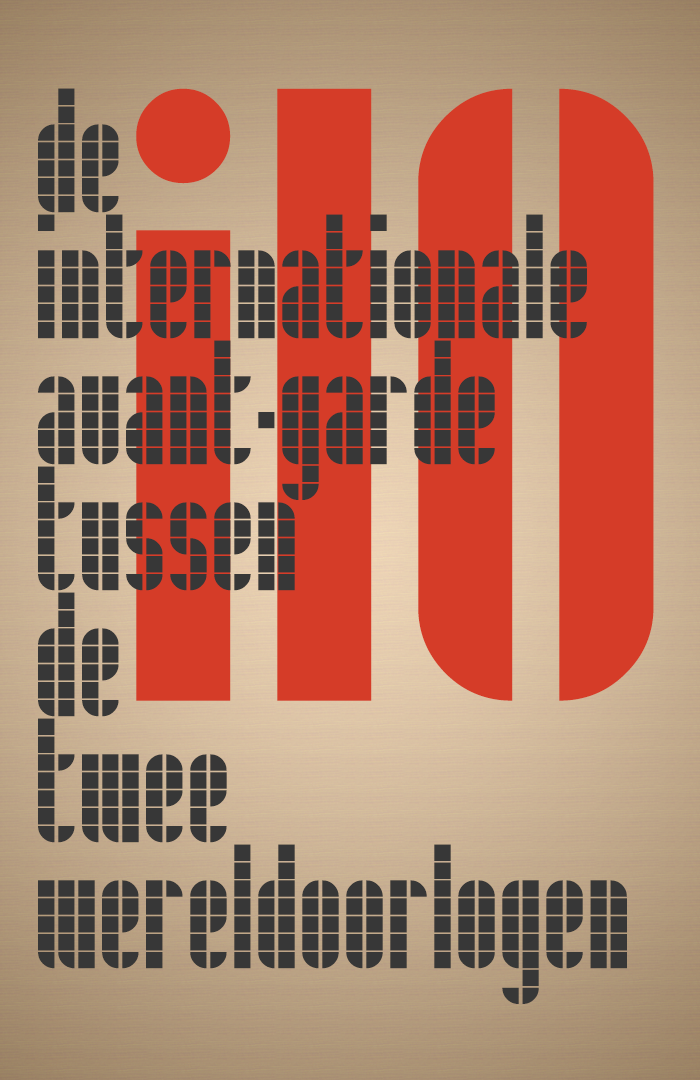
• AVANT-GARDE i10 (Tiles) - Tiled modular type system
Another revival of the works originally designed by great dutch graphic designer Jurriaan Schrofer
The original source for this fontStruction was the cover of 1963 paperback: "i10 de internationale avant-garde tussen de twee wereldoorlogen"
by Lehning, Arthur & Jurriaan Schrofer
I provided the (A-Z, Uc & Lc) basic latin character set, numerals, basic punctuations & symbols. Some of the symbols could still use slight improvements though. But the grid/brick system parameters did pose some tough limitations in regard to the allowed complexity.
The quality of the font preview shown above by FS's website is very poor and inacurate due to the combination of brick size filter (0.90-0.90), very small incisions and composite bricks. Best you'll check the sample image bellow in the comment section.
(The regular version doesn't come with a full uppercase set)